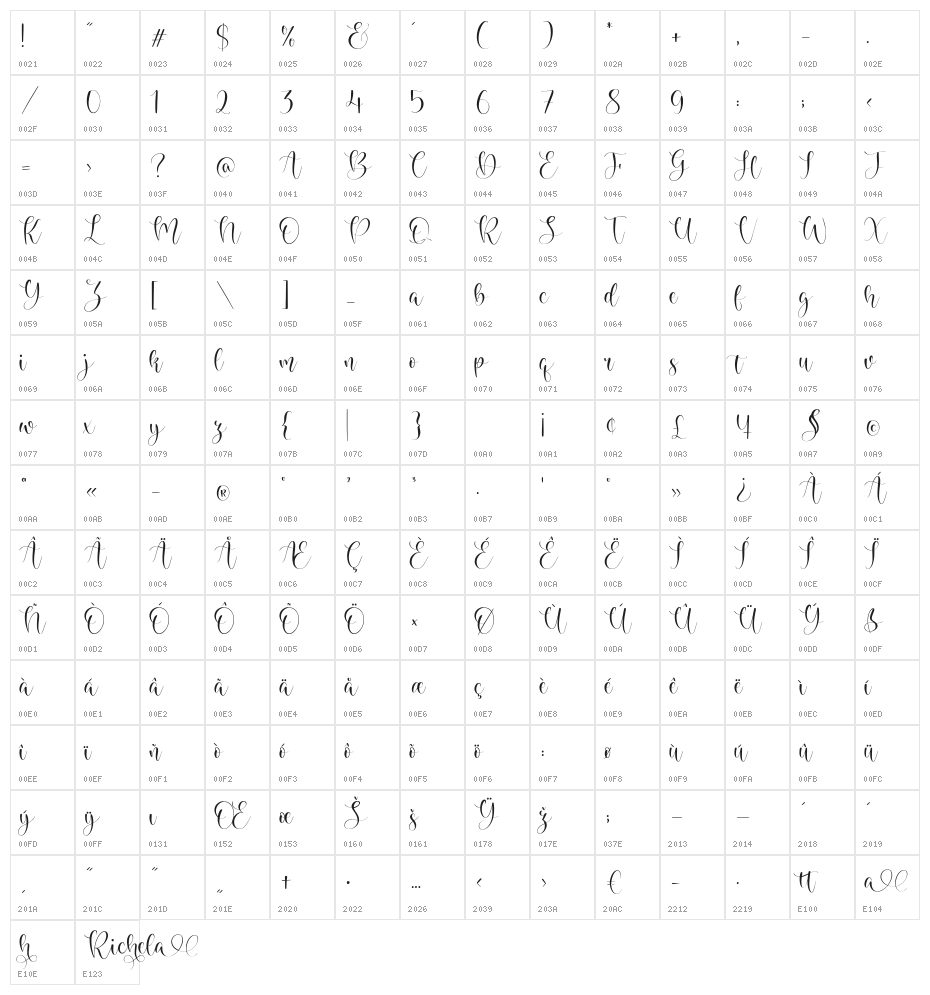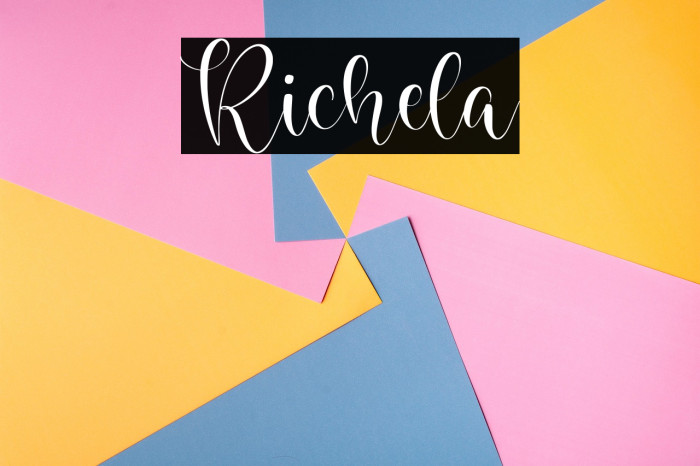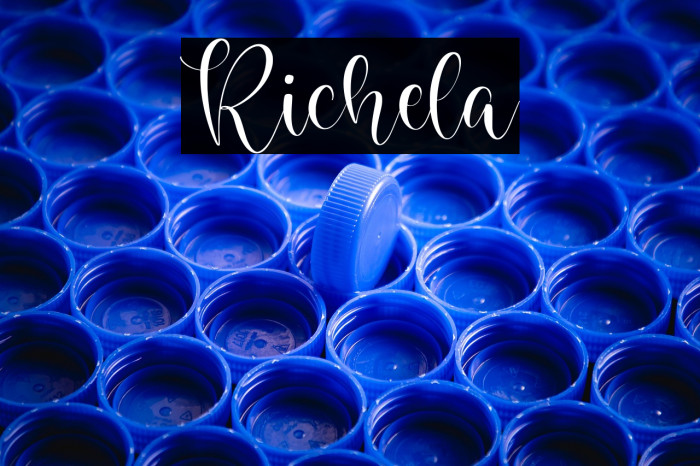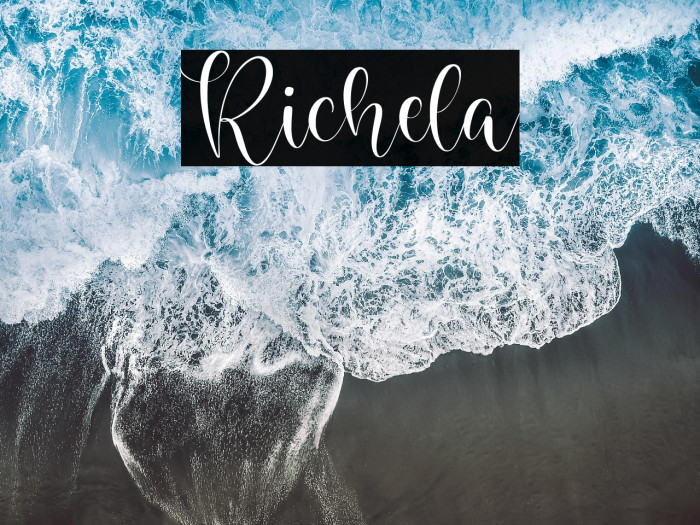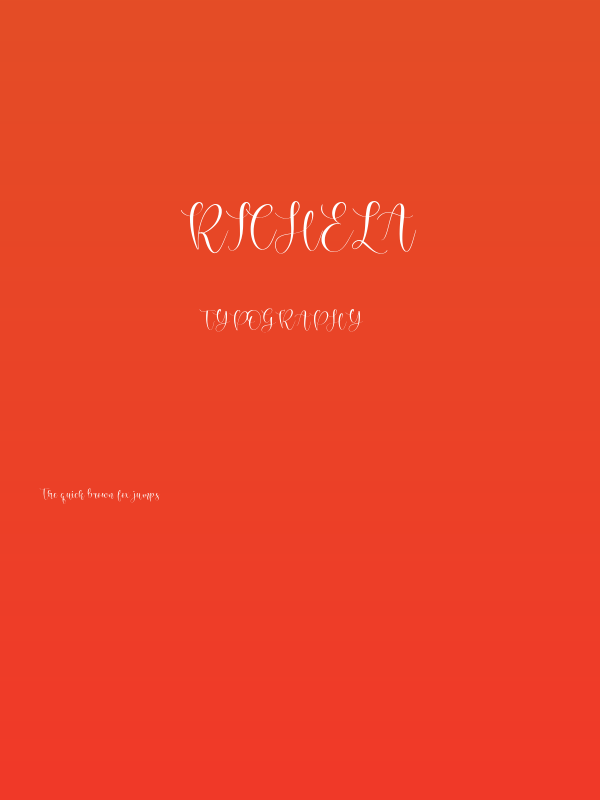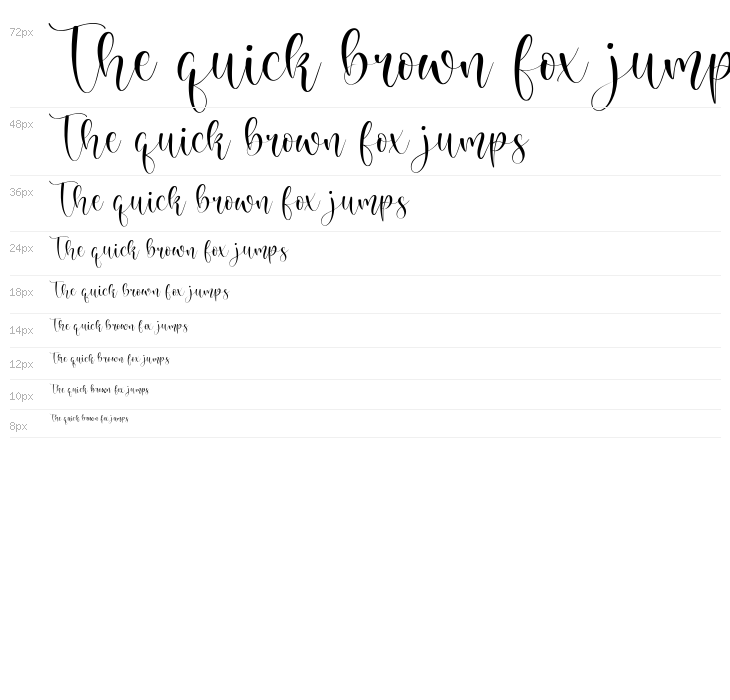
Richela Font
Richela Description
This font features an elegant and flowing script style, characterized by its graceful curves and fluid strokes. The uppercase letters are ornate, with intricate loops and swashes that add a touch of sophistication. The lowercase letters maintain a consistent flow, with some characters featuring distinctive flourishes that enhance their visual appeal. The numerals are stylish and maintain the overall script aesthetic, while the special characters are designed to complement the letterforms seamlessly. This font exudes a sense of elegance and refinement, making it suitable for formal and decorative applications.